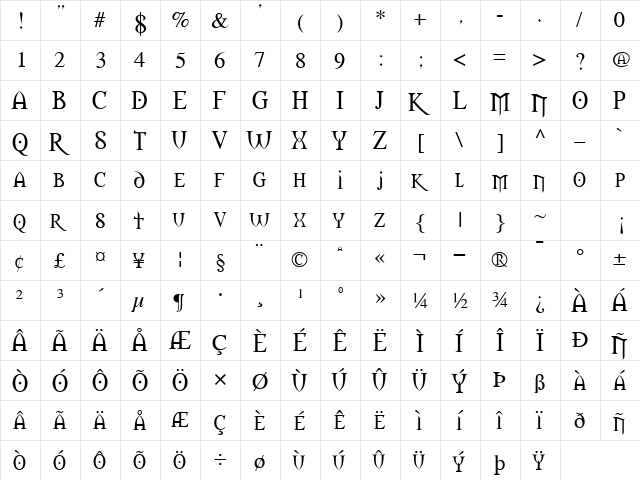
Morpheus Regular
| Foundry | Gophmann A.L. |
| Designer | Gophmann A.L. |
Design Context for Morpheus Typeface
Morpheus is a composed and adaptable typeface that performs quietly and consistently across a wide range of design contexts.